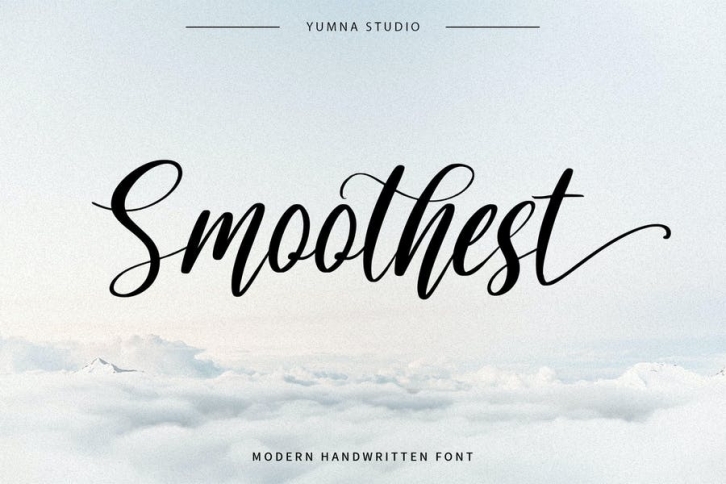
Smoothest - Beautiful handwritten Font Download
Smoothest is a modern handwritten font. With a classy and natural handwritten style, it brings a classy and chic typeface. Smoothest is best used for weddings, branding, logotype, and quotes.
• Beautiful Ligatures
• Beautiful Swash
• Numerals and Punctuation